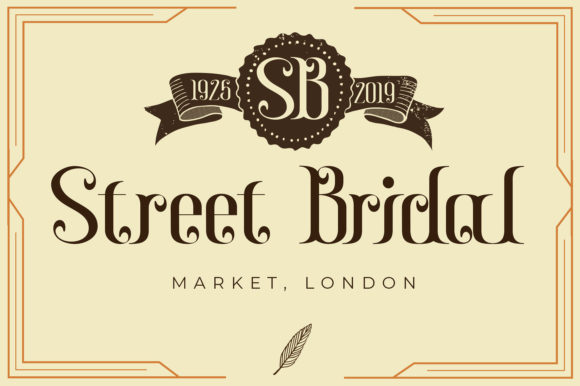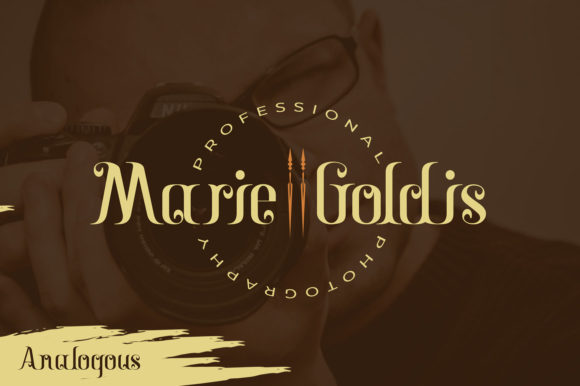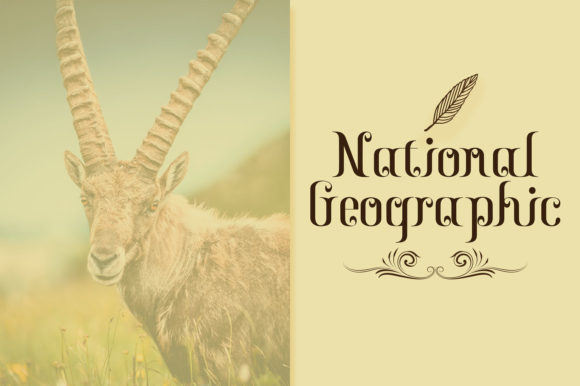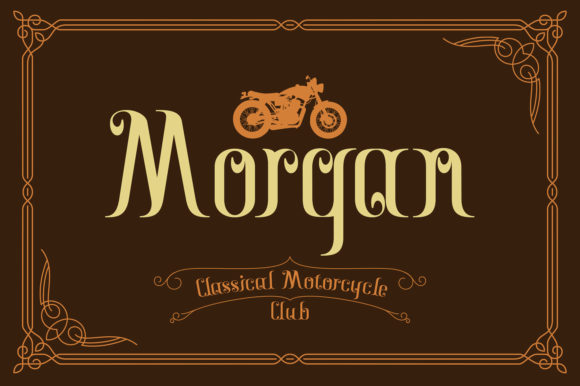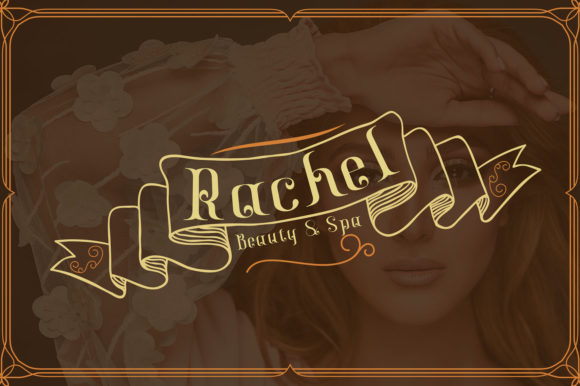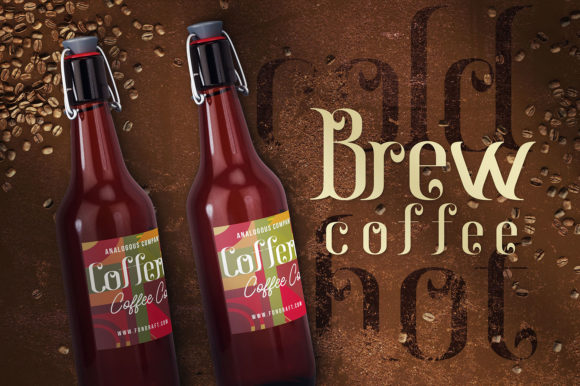
Gayatri Font: A Timeless Classic for Your Design Needs
Gayatri is a unique and bold display font with an old-timey feel that is sure to inspire your next design project. With its classic look and distinctive character, this font is perfect for designers and crafters looking to add a touch of nostalgia and sophistication to their work.
The Characteristics of Gayatri Font
Gayatri font is a display font that boasts a bold and eye-catching appearance. Its old-timey feel is reminiscent of traditional printing techniques, evoking a sense of nostalgia and classic charm. The font features:
- Bold and condensed letterforms: The Gayatri font has a sturdy and compact design, making it perfect for headlines, titles, and other display text.
- Classic serif details: The font features traditional serif details, including subtle flourishes and ornate touches that add to its timeless appeal.
- Unique character set: The Gayatri font includes a range of characters, including uppercase and lowercase letters, numbers, and punctuation marks, making it versatile and easy to use.
Uses for Gayatri Font
The Gayatri font is perfect for a variety of design projects, including:
- Logos and branding: The bold and distinctive appearance of the Gayatri font makes it ideal for creating logos and branding materials that need to stand out.
- Headlines and titles: The font’s classic look and feel make it perfect for use in headlines, titles, and other display text.
- Packaging and labels: The Gayatri font’s old-timey feel makes it a great choice for packaging and labels that need to evoke a sense of nostalgia or tradition.
- Invitations and stationery: The font’s elegant and sophisticated appearance makes it perfect for use in invitations, stationery, and other paper goods.
Tips for Using Gayatri Font
To get the most out of the Gayatri font, follow these tips:
- Use it sparingly: The Gayatri font is bold and eye-catching, so use it sparingly to avoid overwhelming your design.
- Pair it with contrasting fonts: Pair the Gayatri font with contrasting fonts, such as a clean sans-serif font, to create visual interest and hierarchy.
- Experiment with colors and textures: The Gayatri font looks great in a range of colors and textures, so don’t be afraid to experiment and find the perfect combination for your design.
Why Designers and Crafters Love Gayatri Font
Designers and crafters love the Gayatri font for its unique and timeless appearance. Here are just a few reasons why:
- Instant recognition: The Gayatri font has a distinctive appearance that is instantly recognizable, making it perfect for designers and crafters who want to create unique and memorable designs.
- Versatility: The font’s classic look and feel make it versatile and easy to use in a range of design projects.
- Elegance and sophistication: The Gayatri font’s elegant and sophisticated appearance makes it perfect for designers and crafters who want to add a touch of luxury and refinement to their work.
In conclusion, the Gayatri font is a unique and bold display font with an old-timey feel that is sure to inspire your next design project. With its classic look and distinctive character, this font is perfect for designers and crafters looking to add a touch of nostalgia and sophistication to their work. Whether you’re creating logos, headlines, packaging, or invitations, the Gayatri font is a great choice.